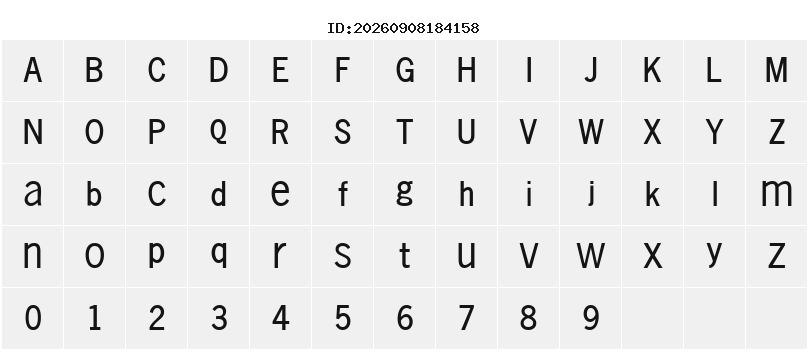
About Vollkegel-Typewriter.ttf
Vollkegel-Typewriter.ttf is a modern, elegant sans-serif font designed for ultimate readability and visual harmony. Perfect for branding, headlines, web design, and print materials.